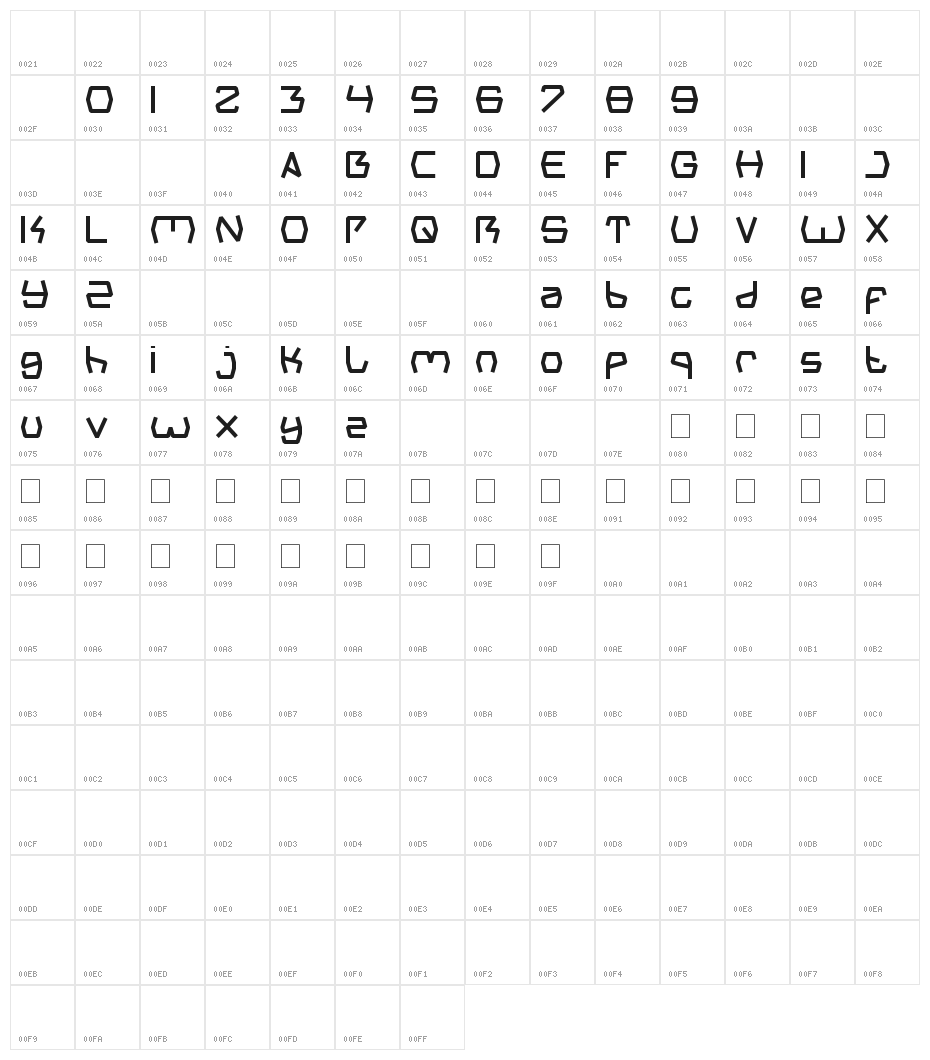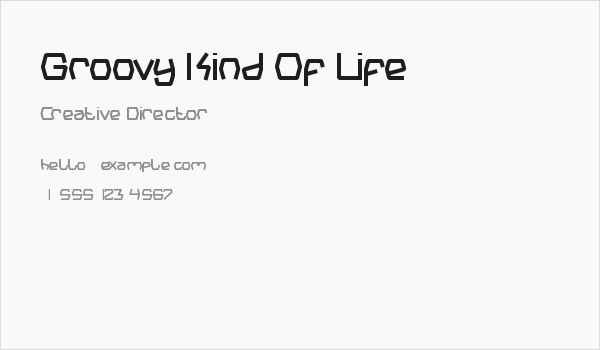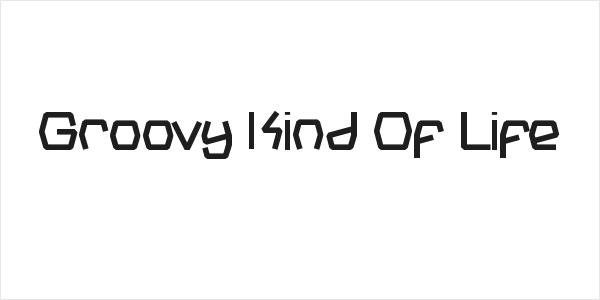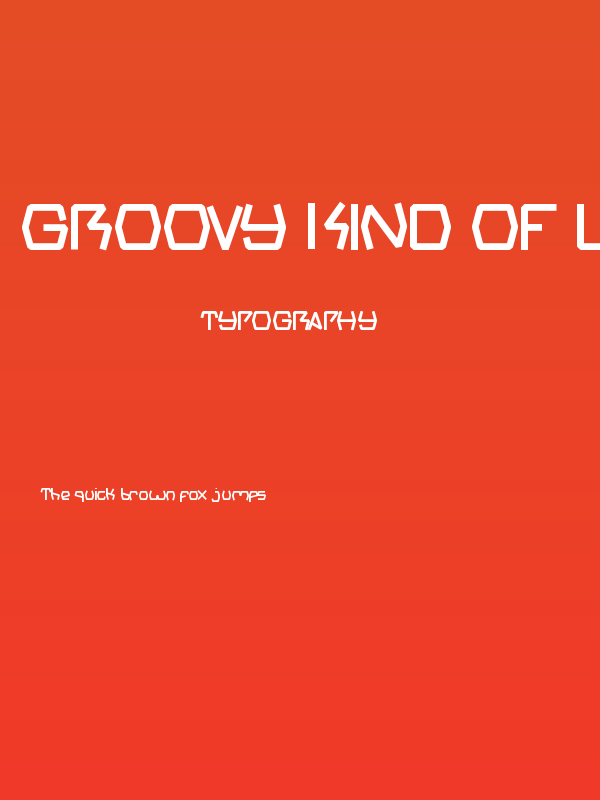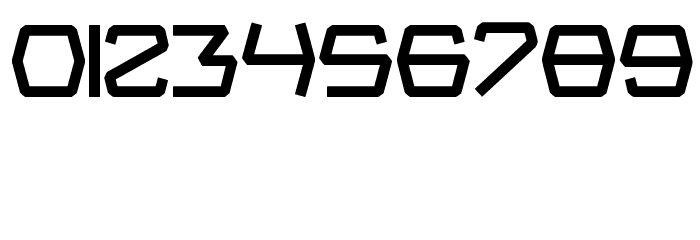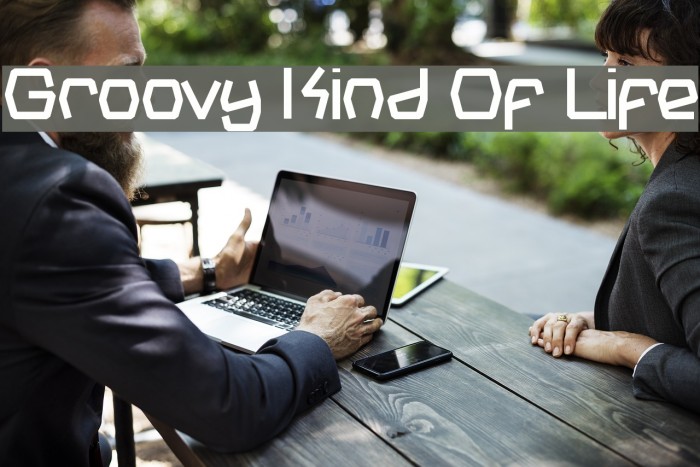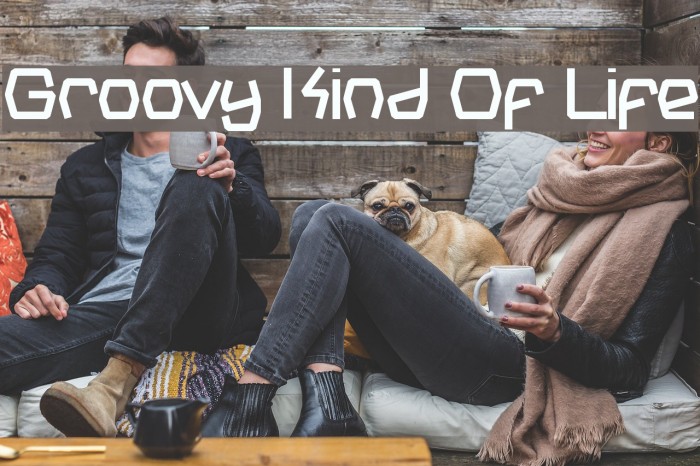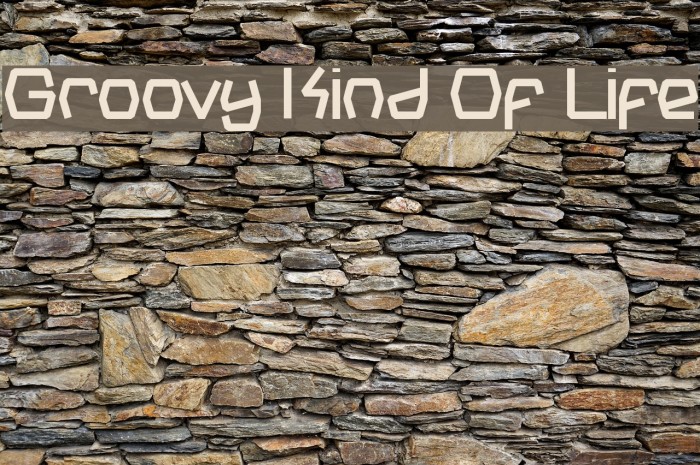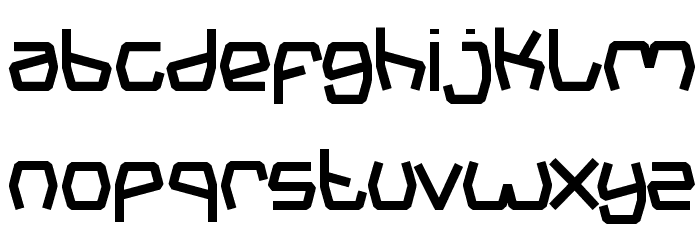
Groovy Kind Of Life Font
This font features a bold, geometric style with angular and sharp edges, giving it a futuristic and modern appearance. The characters are constructed with consistent line thickness, creating a uniform look across both uppercase and lowercase letters. The numerals and special characters follow the same design principles, ensuring cohesion throughout the typeface. The overall aesthetic is reminiscent of digital or sci-fi themes, making it suitable for projects that require a contemporary and edgy feel. The font's unique structure and clear legibility make it stand out, while its boldness ensures it captures attention.
| Proposed Projects | Ideal for sci-fi themed posters, video game graphics, tech branding, and modern digital interfaces. |